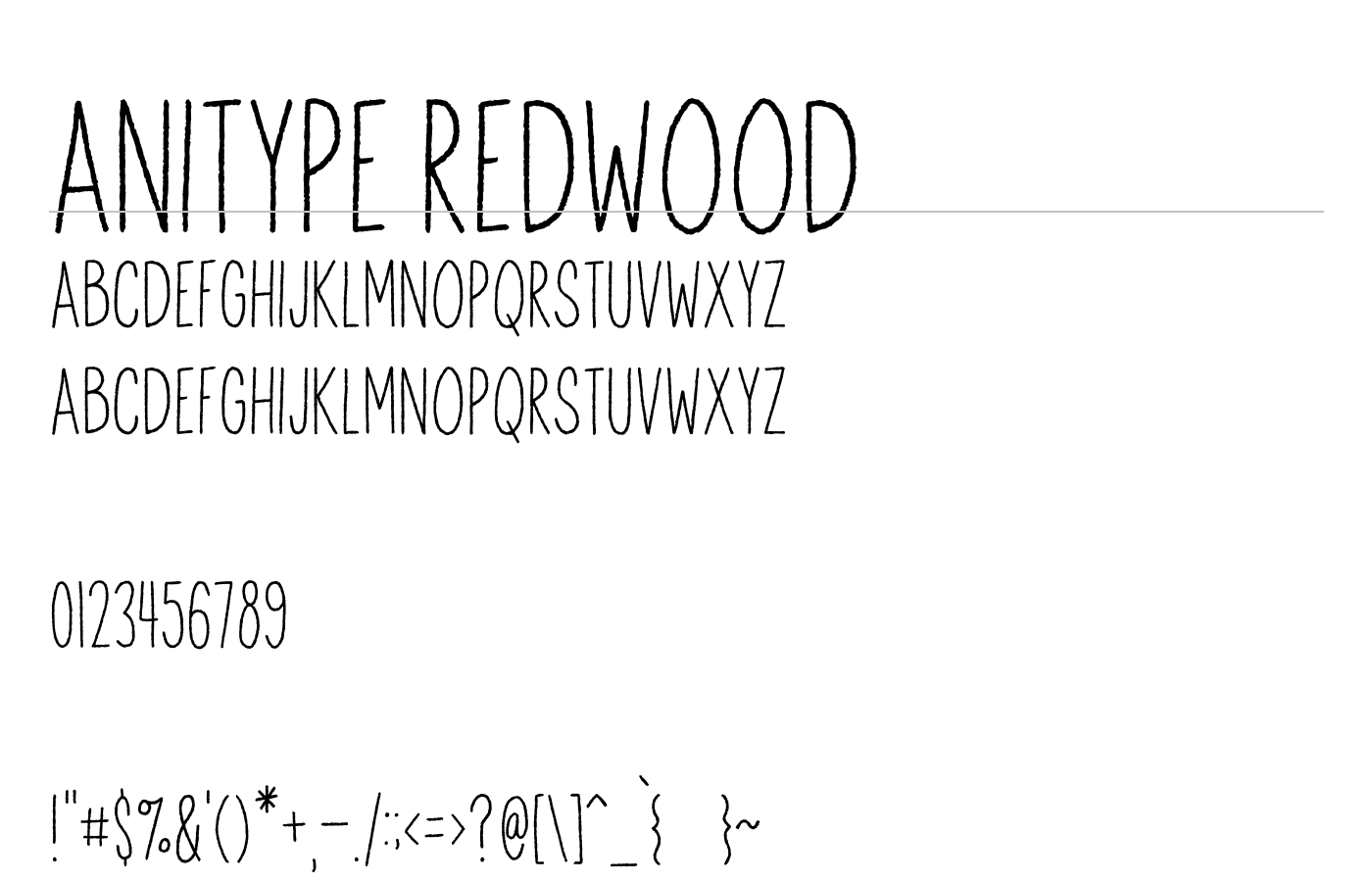
Anitype Redwood is a tall, narrow sans-serif font with a hand-drawn, playful character. Its irregular, slender strokes and slight imperfections give it a casual, friendly feel, making it ideal for creative projects, informal headlines, or artistic branding where a personal touch is desired. This font works well for designs that benefit from a unique, approachable look without sacrificing legibility.
Anitype Redwood Font
About Anitype Redwood Font